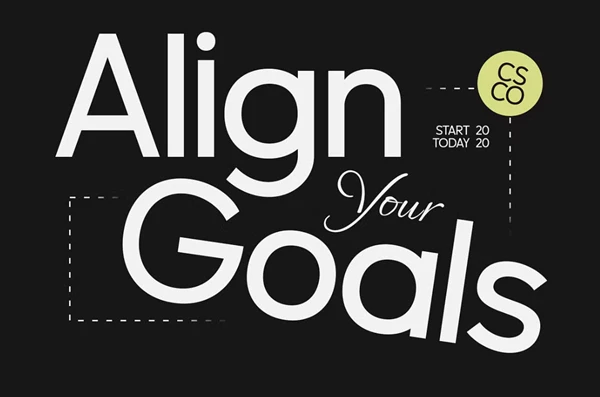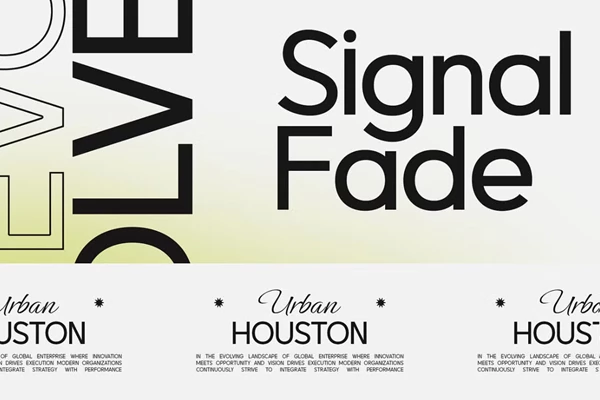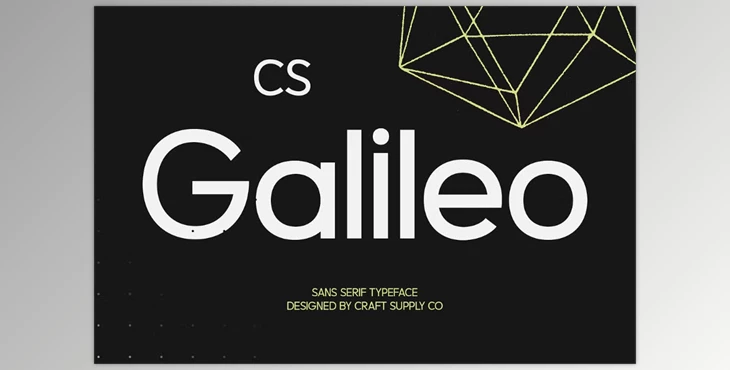
CS Galileo – Contemporary Font:
CS Galileo is a modern sans-serif font that merges aesthetically pleasing minimalism with geometric form. It has balanced lines, and the letterforms boast a professional, yet contemporary, look that's equally pleasing to the eye and easy to read, all while structuring its elements without excess.
A versatile, reader-friendly, and geometric structure makes it easy to use in digital and print mediums, retaining legibility across the board and maintaining consistent visual appeal and readability.
Perfect for anything from corporate branding to editorial projects, CS Galileo adds to anything from branding identities and UI/UX to editorial designs and more. Its neutral modern appearance allows it to exist within most designs without taking away from the concept.
Representing clean design and modern appeal, CS Galileo works well for tech companies, startups, and branding professionals. It boasts a modern presentation that makes it a strong typographical choice, striking a balance between appearance and application.
Some great features of CS Galileo – Contemporary Font:
- Uppercase and lowercase characters
- Numerals and punctuation (OpenType Standard)
- Accents for multilingual characters